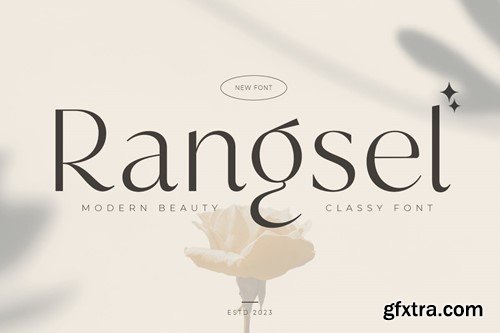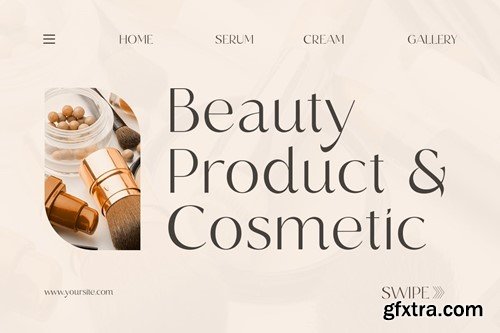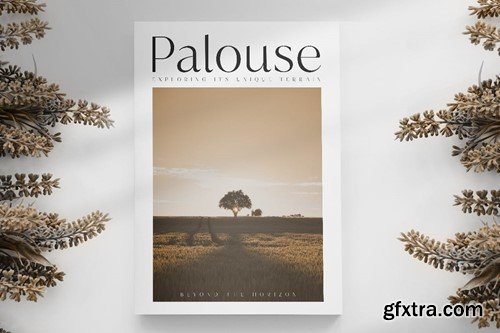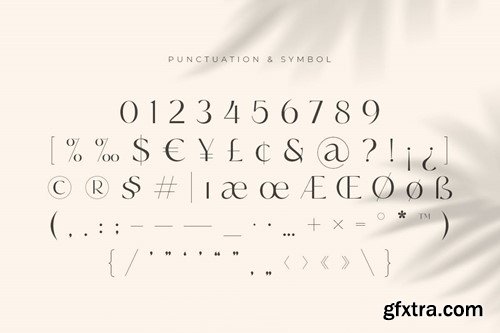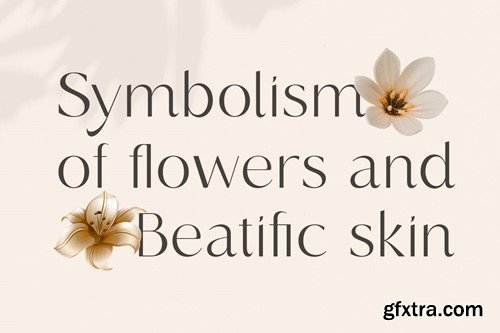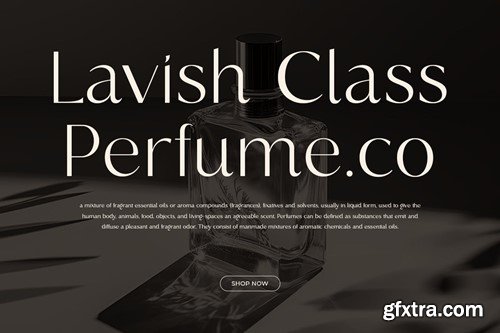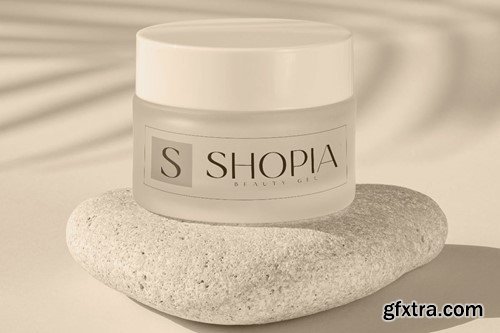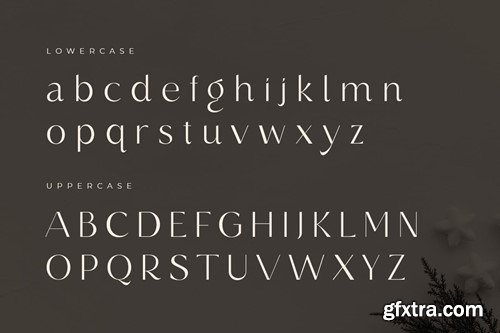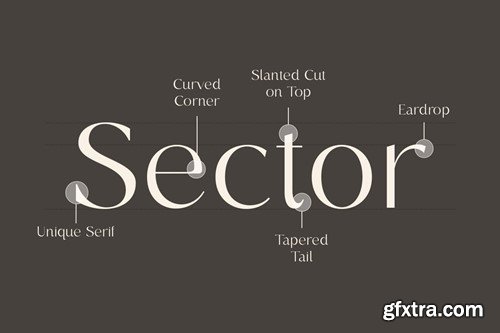
朗ssel - 现代美妆优雅字体 XV68ZJ3
Rangsel - Modern Beauty Classy Font XV68ZJ3
Rangsel - Modern Beauty Classy Font
A Sans Serif font that we created special for Luxury Modern branding needs, with unique shape will be ready to add value of your brand. It so nice to leverage designer or product owner that need solutions to make their design look more Luxury and modern. And specially for Rangsel font, We prepared nice characters to help you create unlimited variations for your creative needs.
Rangsel Luxury Modern Beauty Classy font ready with:
• Any options to get creative variations
• Preview as a inspirations that you can do with Rangsel font
• Ready with Lowercase and Uppercase characters